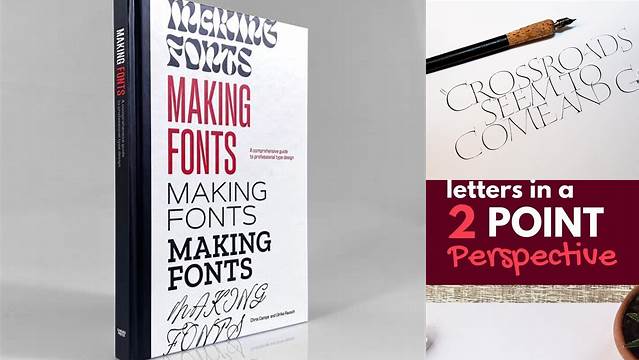
Draw Fonts: A Step-by-Step Guide To Unique Lettering
Hey guys! Ever wondered how those super cool fonts you see everywhere are made? Or maybe you’ve thought about creating your own unique lettering style? Well, you’re in the right place! This guide will walk you through how to draw fonts step by step, making the process fun and accessible, even if you think you don't have an artistic bone in your body. We'll cover everything from the basic tools you'll need to understanding typography principles and practicing different styles. So, grab your pencils, pens, and paper (or your digital drawing tablet!) and let’s dive in!
Why Learn to Draw Fonts?
Before we get started, let's talk about why learning to draw fonts is a fantastic skill. First off, it's incredibly useful for a whole range of creative projects. Whether you're designing logos, creating posters, sprucing up your journal, or even making personalized cards, knowing how to draw fonts gives you a unique edge. Instead of relying on pre-made fonts, you can create lettering that perfectly matches your vision. Imagine the satisfaction of seeing your unique font used in a professional design! Beyond the practical applications, drawing fonts is also a super relaxing and rewarding hobby. It’s a great way to de-stress and express your creativity. Plus, the more you practice, the better you get, and soon you’ll be amazed at the intricate and beautiful lettering you can produce. You'll also develop a deeper appreciation for typography, which is the art and technique of arranging type to make written language legible, readable, and appealing when displayed. Understanding typography can enhance your design skills overall, allowing you to make more informed choices about the fonts you use in all your projects. Think about it: every time you see a captivating logo or an eye-catching advertisement, a skilled typographer has played a role in its creation. By learning to draw fonts, you're not just learning a skill; you're unlocking a whole new world of creative possibilities. You’ll start noticing fonts everywhere and analyzing their design, the curves, the serifs, the spacing – it’s a fascinating journey! So, are you ready to embark on this adventure? Let's get started!
Essential Tools for Font Drawing
Alright, let’s talk tools! You don't need a fancy setup to start drawing fonts. The basics will do just fine, and you can always add more as you progress. The essential tools for font drawing can be quite simple, but having the right ones will definitely make the process smoother and more enjoyable. First up, pencils. A good old-fashioned pencil is your best friend for sketching out initial ideas and creating guidelines. I recommend having a few different grades, like a 2H for light lines and a 2B or HB for darker, more defined strokes. This allows you to create a clear distinction between your guidelines and the final artwork. Next, you'll need pens. Fineliner pens are fantastic for inking your designs once you're happy with the pencil sketch. They come in various sizes, so you can choose the thickness that suits your style. A set of fineliners with varying tip sizes (like 0.1mm, 0.3mm, and 0.5mm) will give you plenty of flexibility. If you're into calligraphy or brush lettering, a brush pen is a must-have. These pens have flexible tips that allow you to create thick and thin lines with a single stroke, adding a beautiful dynamic quality to your lettering. Now, let's talk about paper. Smooth paper is ideal for drawing fonts, as it allows your pens to glide effortlessly across the surface. You can use a sketchbook, a pad of drawing paper, or even individual sheets of high-quality printer paper. If you plan on using markers or brush pens, make sure your paper is thick enough to prevent bleed-through. In addition to these basics, a ruler and compass are helpful for creating precise letterforms, especially when you're just starting out. A ruler will help you draw straight lines and consistent baselines, while a compass is perfect for creating perfectly round curves and circles. And lastly, don’t forget an eraser! A good eraser is essential for cleaning up your sketches and correcting any mistakes. A kneaded eraser is particularly useful, as it can be molded into different shapes to erase small areas without damaging the surrounding lines. So, gather your tools, find a comfortable workspace, and let’s start drawing some fonts!
Understanding Basic Typography Principles
Okay, before we start drawing actual letters, let’s get a little nerdy about typography! Knowing the basic principles will seriously level up your font-drawing game. Understanding basic typography principles is crucial for creating fonts that are not only visually appealing but also legible and functional. One of the first things to grasp is anatomy. Every letter has its own unique parts, like the ascender (the part that extends above the x-height, like in 'b' or 'h'), the descender (the part that extends below the baseline, like in 'p' or 'g'), and the x-height (the height of the main body of a lowercase letter, like 'x'). Understanding these parts helps you maintain consistency and balance in your font. Next up is kerning and tracking. Kerning refers to the spacing between individual letters, while tracking is the overall spacing between all the letters in a word or phrase. Proper kerning and tracking are essential for readability. If the letters are too close together, they'll look cramped; if they're too far apart, the word will look disjointed. Pay attention to the spaces between letters like 'A' and 'V' or 'T' and 'o', as these often need adjustments. Then there's leading, which is the vertical space between lines of text. Just like kerning and tracking, leading affects readability. Too little leading makes the text look dense and hard to read, while too much leading can make the lines feel disconnected. A good rule of thumb is to set your leading to be slightly larger than your font size. Another important concept is contrast. Contrast refers to the visual differences between different parts of your font, such as the thickness of the strokes. High-contrast fonts have a dramatic difference between thick and thin strokes, while low-contrast fonts have a more uniform stroke weight. The amount of contrast you use will depend on the style of font you're creating. Finally, consider the overall style and personality of your font. Is it elegant and formal, or playful and casual? The style of your font should match the message you're trying to convey. Think about the fonts used in different logos and branding – they're carefully chosen to reflect the brand's identity. By understanding these basic typography principles, you'll be well-equipped to create fonts that are not only beautiful but also effective in communicating your message. So, let’s put this knowledge into practice and start sketching some letterforms!
Step-by-Step Guide to Drawing Your First Font
Okay, guys, let's get to the fun part – actually drawing a font! Don't worry, we'll take it slow and break it down into manageable steps. This step-by-step guide to drawing your first font will help you create your own unique lettering style from scratch. First, choose a style. Are you feeling a classic serif, a modern sans-serif, or something more whimsical like a script font? Think about the mood you want to convey and pick a style that matches. If you're just starting out, I recommend sticking with a simpler style like a sans-serif, as it has fewer details and is easier to master. Once you've chosen a style, establish your guidelines. This is where your ruler and pencil come in handy. Draw a baseline (the line the letters sit on), an x-height line (the height of your lowercase letters), an ascender line (the height of the ascenders), and a descender line (the depth of the descenders). These lines will help you maintain consistency in your letterforms. Next, sketch out the basic shapes of your letters. Start with the lowercase alphabet, as these letters form the foundation of most fonts. Focus on the essential strokes and curves, and don't worry about the details just yet. Use light pencil strokes so you can easily erase and adjust as needed. Pay attention to the proportions of each letter and how they relate to each other. For example, the width of the 'o' should be similar to the width of the 'n'. Once you're happy with the basic shapes, refine the details. This is where you can start adding serifs (the little decorative strokes at the ends of the letters in serif fonts) or adjusting the curves and angles. Use your fineliner pens to ink the outlines of your letters, and then erase the pencil guidelines. Don't be afraid to experiment and try different variations. This is your font, so make it your own! After you've inked the lowercase alphabet, move on to the uppercase letters. Use the same guidelines and principles you used for the lowercase letters, but remember that uppercase letters are generally taller and more imposing. Think about how the uppercase letters will interact with the lowercase letters in words and phrases. Finally, add numbers and punctuation. These characters are just as important as the letters and should be designed to complement your font style. Pay attention to the spacing and proportions of these characters, and make sure they fit seamlessly with the rest of your font. And there you have it – your first font! It might not be perfect, but that's okay. The most important thing is to keep practicing and experimenting. The more you draw, the better you'll get. So, grab your tools and start creating your unique lettering masterpiece!
Practicing Different Font Styles
Now that you know the basics, let's talk about expanding your font-drawing horizons! Practicing different font styles is the key to becoming a versatile lettering artist. Each style has its own unique characteristics and challenges, so exploring a variety of fonts will not only improve your skills but also help you discover your own personal style. One of the most fundamental distinctions in typography is between serif and sans-serif fonts. Serif fonts have small decorative strokes (serifs) at the ends of the letters, while sans-serif fonts do not. Serif fonts are often perceived as more traditional and formal, while sans-serif fonts are seen as more modern and clean. Try drawing both types of fonts to understand their different aesthetics and structural elements. Within the serif and sans-serif categories, there are countless variations. For example, you can explore different serif styles like Old Style, Transitional, and Modern, each with its own distinct look and feel. Similarly, there are various sans-serif styles like Grotesque, Neo-Grotesque, and Geometric. Researching these different styles and practicing drawing them will give you a deeper understanding of typography history and design principles. Another exciting area to explore is script fonts. Script fonts are designed to mimic handwriting and can range from elegant and formal to casual and playful. Drawing script fonts requires a different approach than drawing serif or sans-serif fonts, as you need to focus on creating fluid, connected strokes. Brush lettering and calligraphy are great techniques to learn for drawing script fonts. In addition to these main categories, there are also display fonts, which are designed for headlines and other large-format uses. Display fonts often have more unique and decorative elements, making them perfect for adding personality and flair to your designs. Experimenting with different display fonts can be a lot of fun, as you can really let your creativity shine. To effectively practice different font styles, start by studying examples of well-designed fonts. Analyze their letterforms, proportions, and spacing. Then, try sketching your own versions, paying attention to the details that make each style unique. Don't be afraid to break the rules and experiment with your own variations. The key is to keep practicing and pushing your boundaries. You can also try using online resources and tutorials to learn specific techniques and styles. There are countless websites and videos that offer valuable tips and inspiration for font drawing. Remember, the more you practice, the more comfortable and confident you'll become in drawing different font styles. So, grab your tools and start exploring the wonderful world of typography!
Tips and Tricks for Font Drawing Success
Alright, let’s wrap things up with some golden nuggets of advice! These tips and tricks for font drawing success will help you avoid common pitfalls and take your lettering skills to the next level. First and foremost, practice, practice! I know it sounds cliché, but it's true. The more you draw, the better you'll get. Set aside some time each day or week to practice your lettering, even if it's just for 15-20 minutes. Consistency is key. Don't get discouraged if your first attempts don't look perfect. Everyone starts somewhere, and even the most skilled typographers have gone through a learning curve. Embrace the process, learn from your mistakes, and keep pushing yourself. Another important tip is to study existing fonts. Look at the fonts you admire and try to analyze what makes them work. Pay attention to the letterforms, proportions, spacing, and overall style. You can even try redrawing your favorite fonts to get a better understanding of their construction. This will help you develop your eye for good typography and inspire your own designs. Use references. When you're drawing a specific font style, it's helpful to have a reference image or font specimen to guide you. This will ensure that you're staying true to the style and maintaining consistency in your letterforms. You can find font specimens online or in typography books. Start with the basics. Don't try to jump into complex font designs right away. Master the basic letterforms and principles of typography first. Once you have a solid foundation, you can start experimenting with more advanced techniques and styles. Pay attention to spacing. As we discussed earlier, kerning, tracking, and leading are crucial for readability. Take the time to adjust the spacing between your letters and lines of text to create a balanced and harmonious composition. Don't be afraid to experiment. Typography is an art form, and there are no hard and fast rules. Don't be afraid to try new things, break the rules, and develop your own unique style. The most innovative and exciting fonts often come from experimentation. Get feedback. Share your work with other artists and designers and ask for their feedback. Constructive criticism can be invaluable in helping you improve your skills. You can also join online lettering communities and forums to connect with other font enthusiasts and share your work. Use the right tools. Having the right tools can make a big difference in your font-drawing experience. Invest in high-quality pencils, pens, and paper that you enjoy using. A comfortable and efficient workspace will also help you stay focused and productive. And finally, have fun! Drawing fonts should be an enjoyable and creative process. Don't take yourself too seriously, and allow yourself to experiment and make mistakes. The more you enjoy the process, the more likely you are to stick with it and see your skills improve. So, go forth and create some awesome fonts!
With these tips and the steps we've covered, you're well on your way to becoming a font-drawing pro. Remember, the key is practice, patience, and a passion for lettering. Happy drawing!